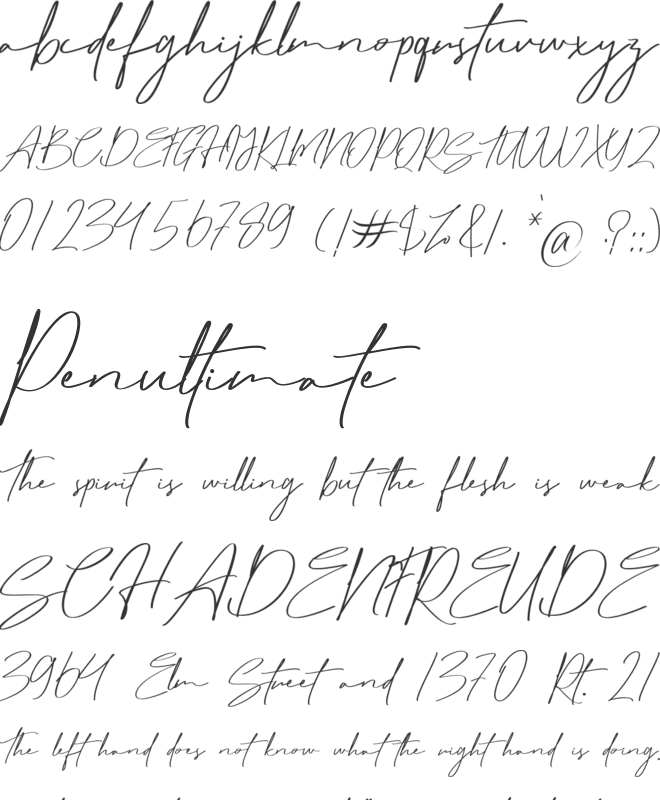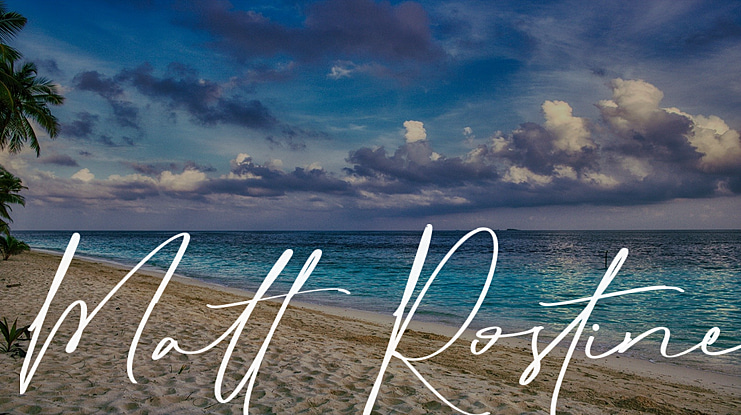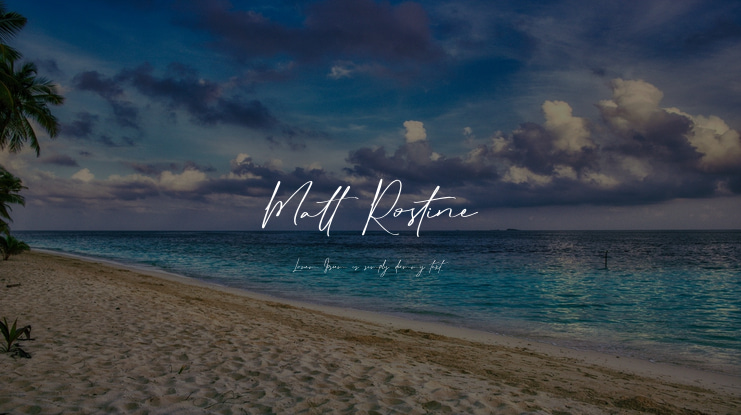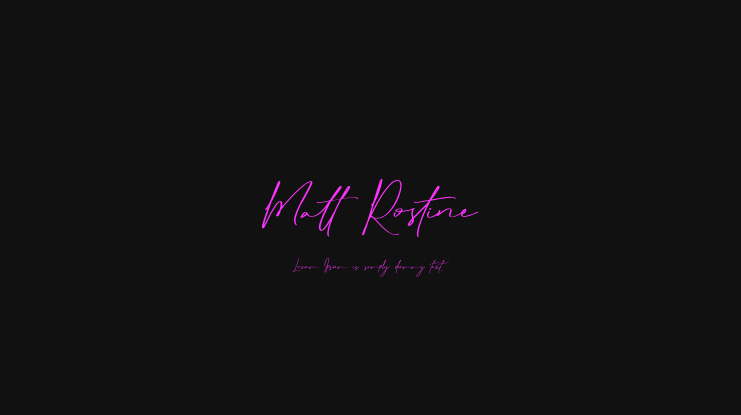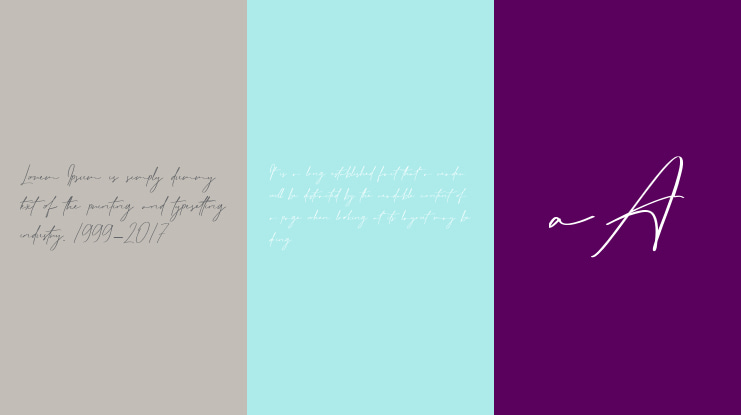
Matt Rostine Font
Vultype Co
This enchanting font will turn any creative idea into a true standout. Perfect fit for all of your logos, branding, social media, etc. Get creative with its unique playfulness, and use it to brighten up any crafting project!